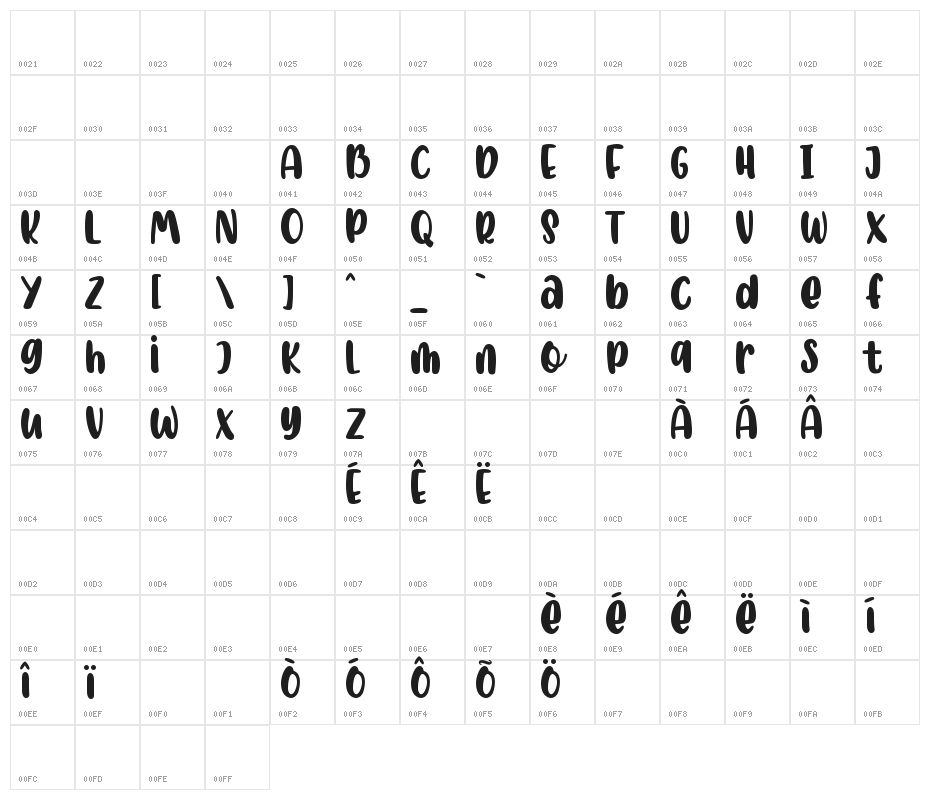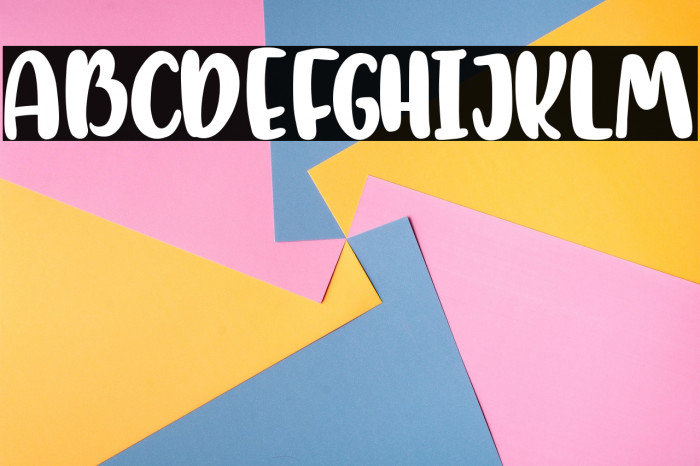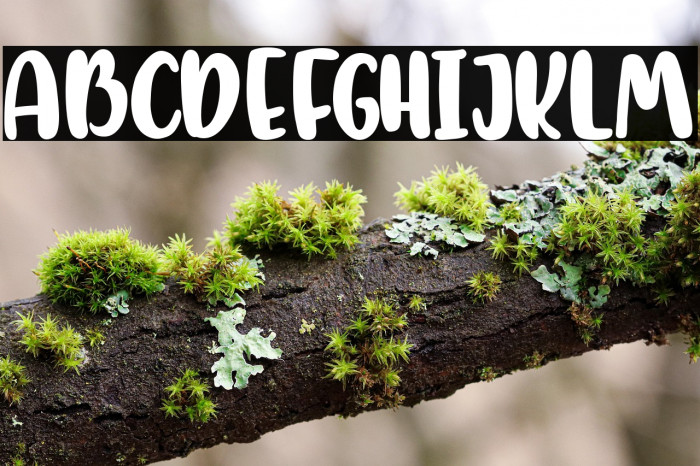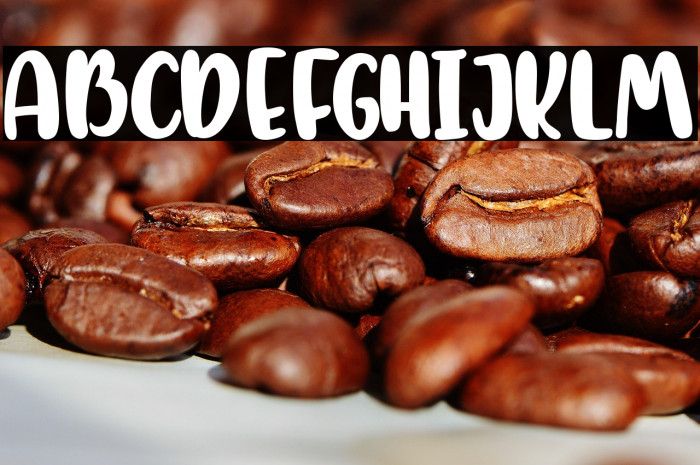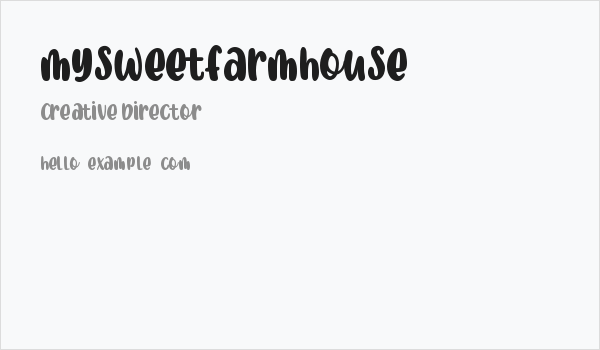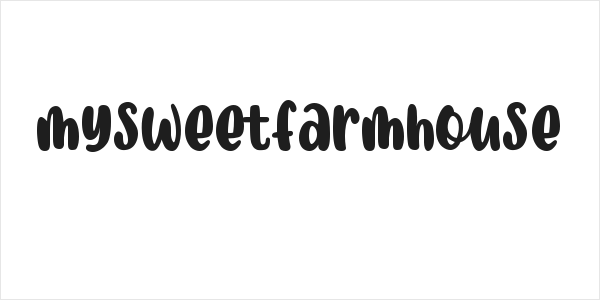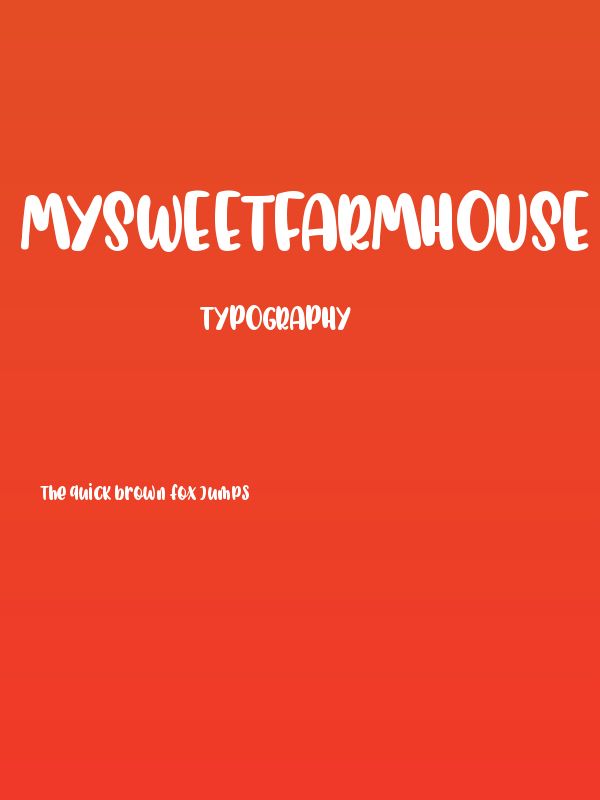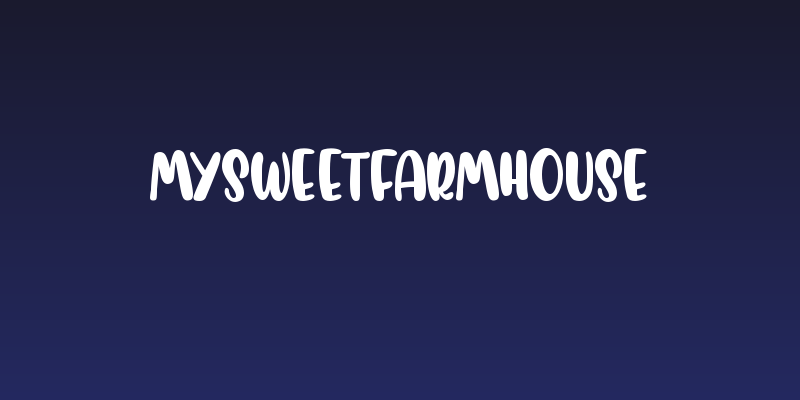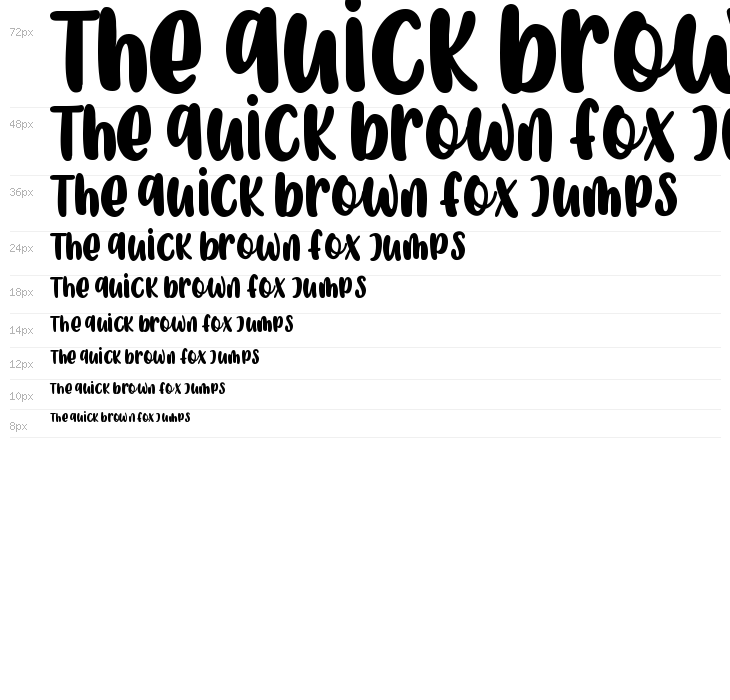
mysweetfarmhouse Font
mysweetfarmhouse Description
This font features a playful and bold handwritten style, characterized by its thick, rounded strokes and whimsical curves. The letters are closely spaced, creating a cohesive and lively appearance. The uppercase and lowercase letters maintain a consistent style, with a slightly exaggerated, bouncy form that adds a sense of fun and informality. The font's boldness makes it highly legible, while its unique style adds a touch of personality and charm. It is well-suited for projects that require a friendly and approachable aesthetic.
Overall StylePlayful
Proposed ProjectsIdeal for greeting cards, children's books, playful branding, and social media graphics.